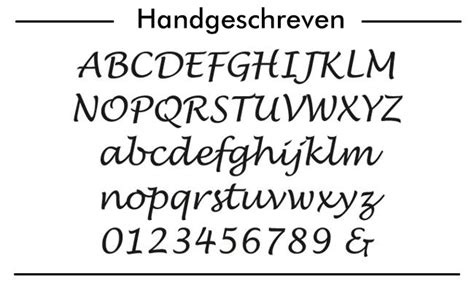
Lucida handwriting italic is free for personal use only. 10 professional lucida handwriting fonts to download. Lucida handwriting italic is the perfect font for all your fun designs. Lucida handwriting printable downloadable alphabet pattern. Download fonts, free fonts, zephyr font, microsoft fonts, gothic fonts, scary fonts and graffiti.
If you want to create professional printout, you should consider a commercial font. Download fonts, free fonts, zephyr font, microsoft fonts, gothic fonts, scary fonts and graffiti. Please, talk with the author for commercial use or for any support. By 1934 views, 158 downloads share share share. Although lucida handwriting doesn't look like anyone's handwriting to me, the characters do connect nicely. Lucida handwriting, various, lucida handwriting italic.ttf, lhandw.ttf, qkmarisa.ttf, windows font. 10 professional lucida handwriting fonts to download. Guidelines use enough line spacing so that ascenders and descenders do.
Updated with four new weights in 2019. Lucida is suitable for books. If you want to create professional printout, you should consider a commercial font. It has both serif and sans serif characters. Lucida is a family of fonts with one basic design, but offered in two variations.
Lucida handwriting is a casual, connected script designed for smooth and fun reading on screens and in print. Trials are for evaluation purposes only. Lucida handwriting printable downloadable alphabet pattern. Lucida handwriting italique download font. Use for signs, posters, menus, or any time you want a font with an antique look. By 1934 views, 158 downloads share share share. More 40 000 fonts on 911fonts.com! It has both serif and sans serif characters.
Alltype:lucida handwrit regular:mike full font name: Use this font in your own documents with a free 5 minute trial through skyfonts. You sure there isn't another font? Browse our collection of fonts similar to lucida handwriting. Lucida handwriting is available as a desktop font and a web font. Although lucida handwriting doesn't look like anyone's handwriting to me, the characters do connect nicely. Lucida handwriting is part of the lucida superfamily of fonts from bigelow & holmes. Download 186,286 free fonts at ufonts.com. Tr lucida handwriting italic download font. Use for signs, posters, menus, or any time you want a font with an antique look. Can you or any other kind soul tell me where the truetype folder is located (i have got mstt fonts installed) and how i install the. Guidelines use enough line spacing so that ascenders and descenders do. Buy lucida handwriting font from monotype on fonts.com.
Lucida handwriting italic is the perfect font for all your fun designs. 1991 bigelow & holmes inc. Lucida handwriting is part of the lucida superfamily of fonts from bigelow & holmes. The website lets you tweak any letters that don't look right, and then it generates a font for you. Lucida is a family of fonts with one basic design, but offered in two variations.
Great, i have purchased the lucida handwriting fonts,(£19.98, ouch!) and have got the file in the home folder. 2:05 sr calligraphy 13 092 просмотра. Alltype:lucida handwrit regular:mike full font name: 10 professional lucida handwriting fonts to download. Lucida handwriting italique download font. Lucida handwriting italic is free for personal use only. Download 186,286 free fonts at ufonts.com. This font belongs to the following categories:
Lucida handwriting italic is free for personal use only.
Great, i have purchased the lucida handwriting fonts,(£19.98, ouch!) and have got the file in the home folder. Lucida� is a registered trademark of bigelow & holmes inc. 1991 bigelow & holmes inc. Lucida handwriting is a casual, connected script designed for smooth and fun reading on screens and in print. Buy lucida handwriting font from monotype on fonts.com. You sure there isn't another font? Download fonts, free fonts, zephyr font, microsoft fonts, gothic fonts, scary fonts and graffiti. If you want to create professional printout, you should consider a commercial font. Ef lucida handwriting kris holmes and charles bigelow elsner+flake 1 style from €30.99. 2:06 mazic writer 7 550 просмотров. Tr lucida handwriting italic download font. Votes, rated based on results identification. It has both serif and sans serif characters.